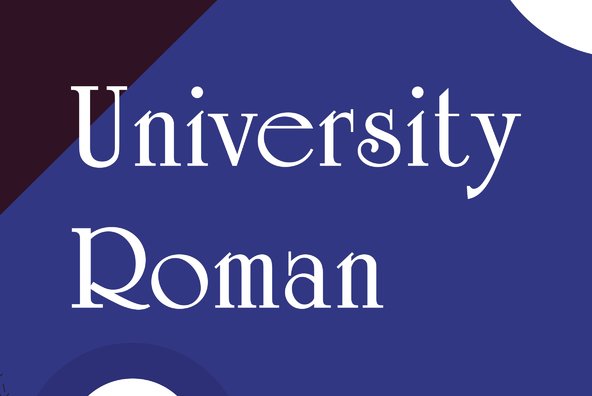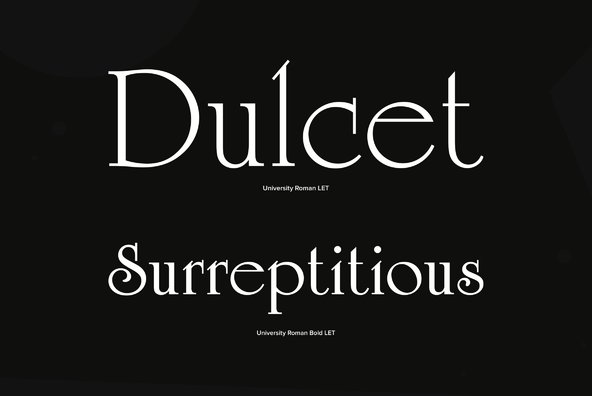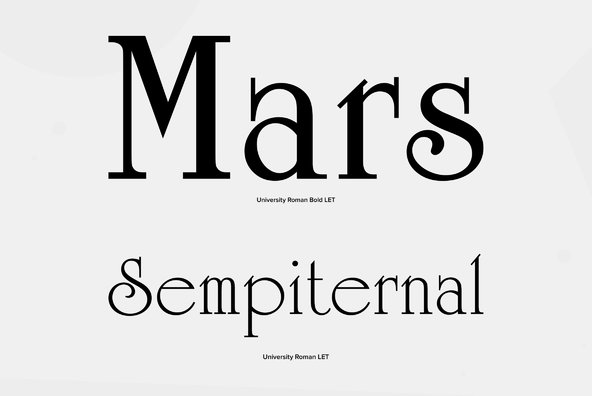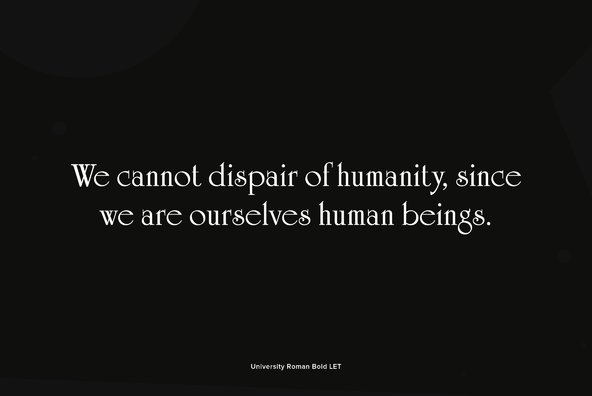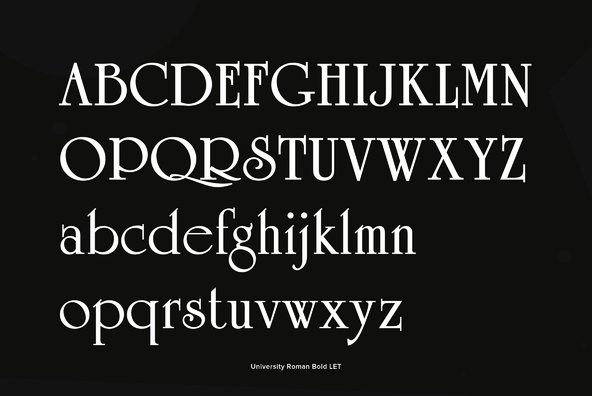
University Roman
Foundry: Letraset
A popular typeface that has been widely used since its introduction by in 1972. This new and improved version includes many free-flowing swash alternatives that give designers more freedom for experimentation. Produced by Phillip Kelly in the Type Studio, based on his and Mike Daines' original design.